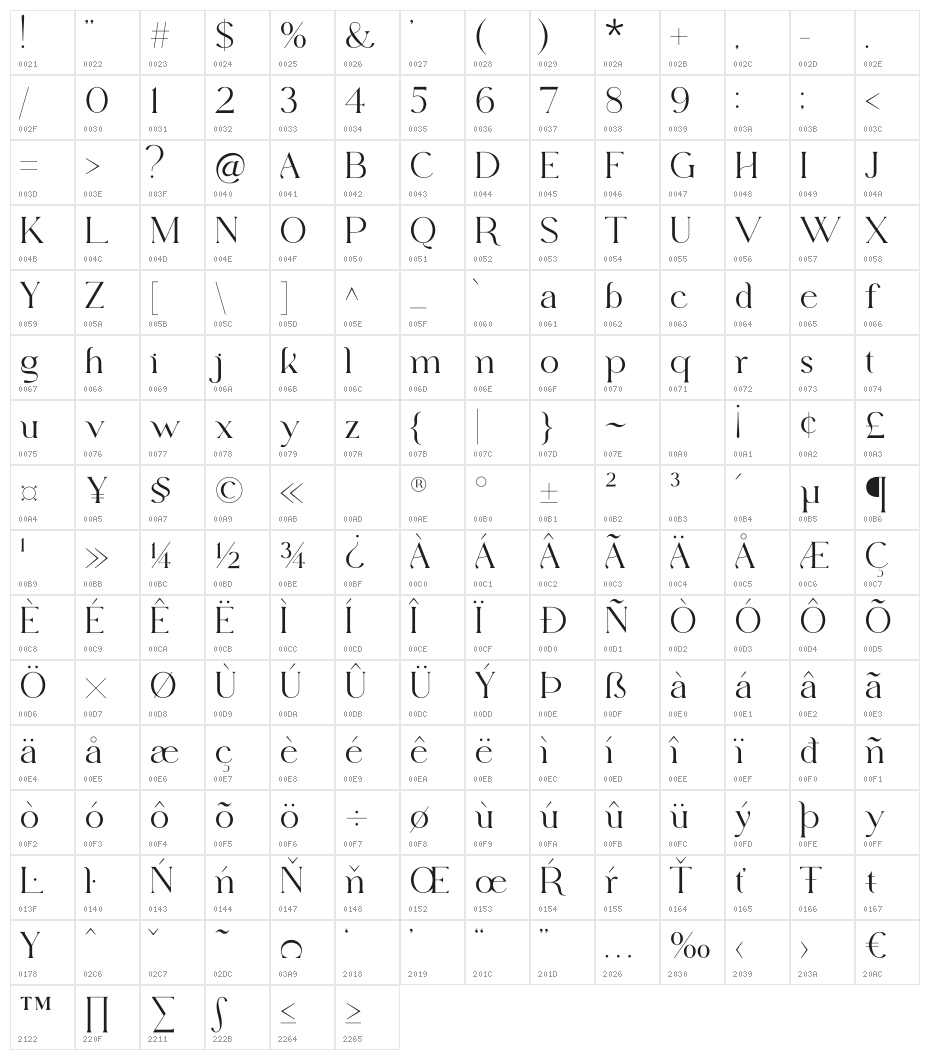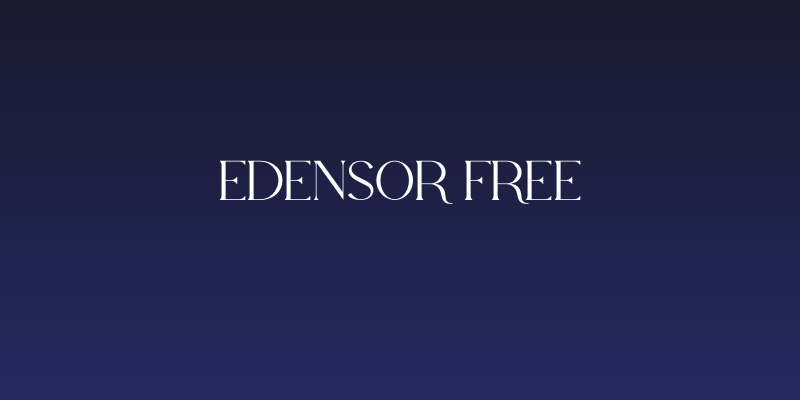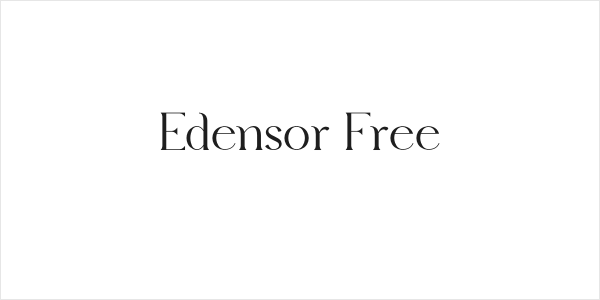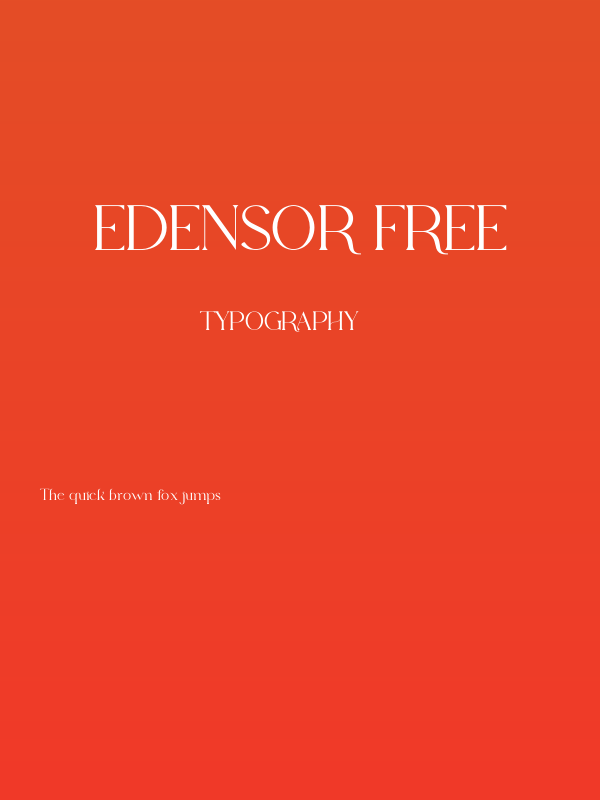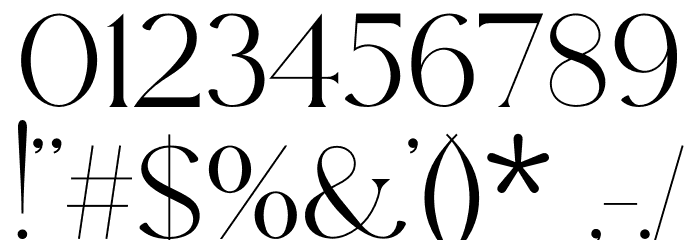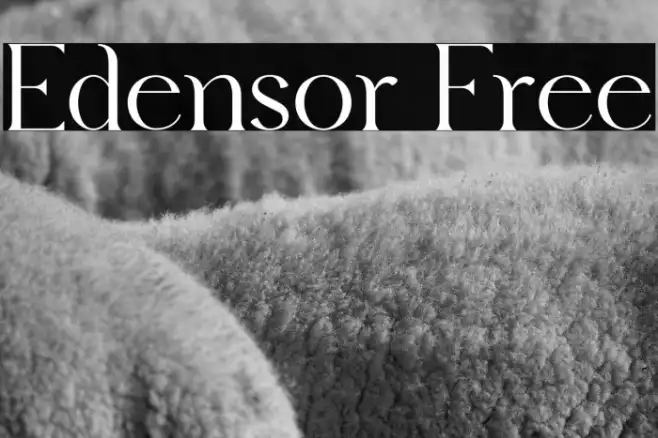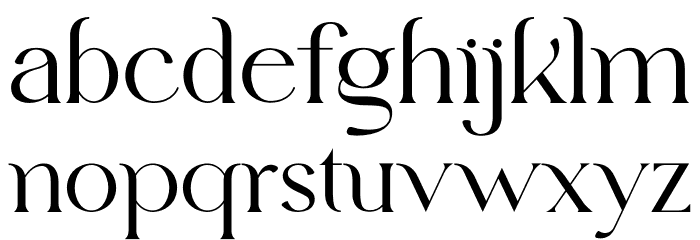
Edensor Free Font
Edensor Free Description
This font exhibits a sophisticated and elegant serif style, characterized by its high contrast between thick and thin strokes. The uppercase letters are tall and stately, with sharp, pointed serifs that lend a sense of formality and refinement. The lowercase letters maintain a similar elegance, with smooth curves and a graceful flow. The numerals are distinct and clear, matching the overall aesthetic with their balanced proportions. Special characters are thoughtfully designed, ensuring consistency across the entire typeface. This font is ideal for projects that require a touch of class and sophistication.
| Use Case | Headlines, Logos, Editorial design |
| Proposed Projects | Ideal for luxury branding, editorial design, wedding invitations, and high-end product packaging. |